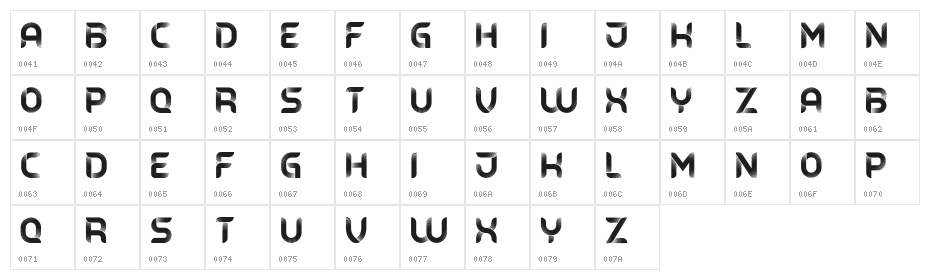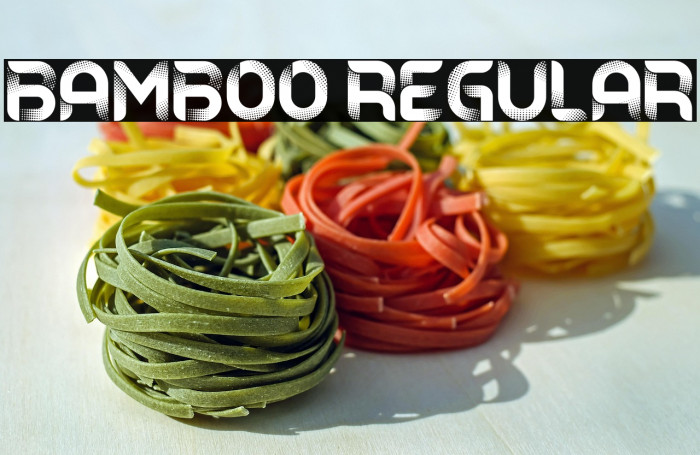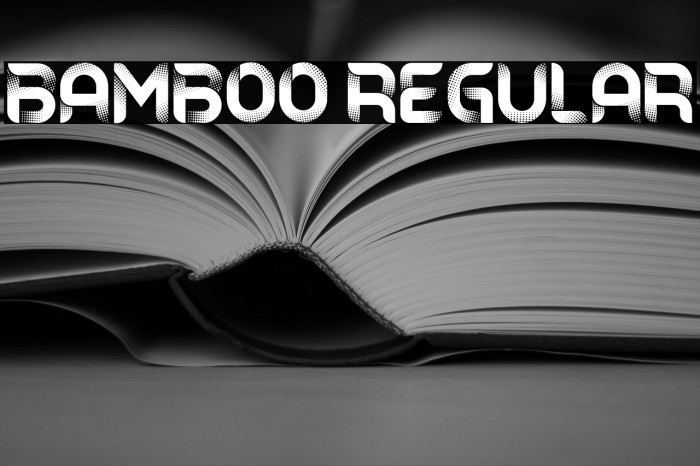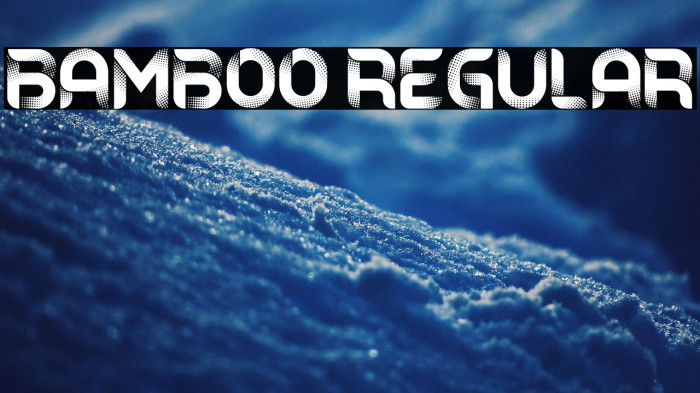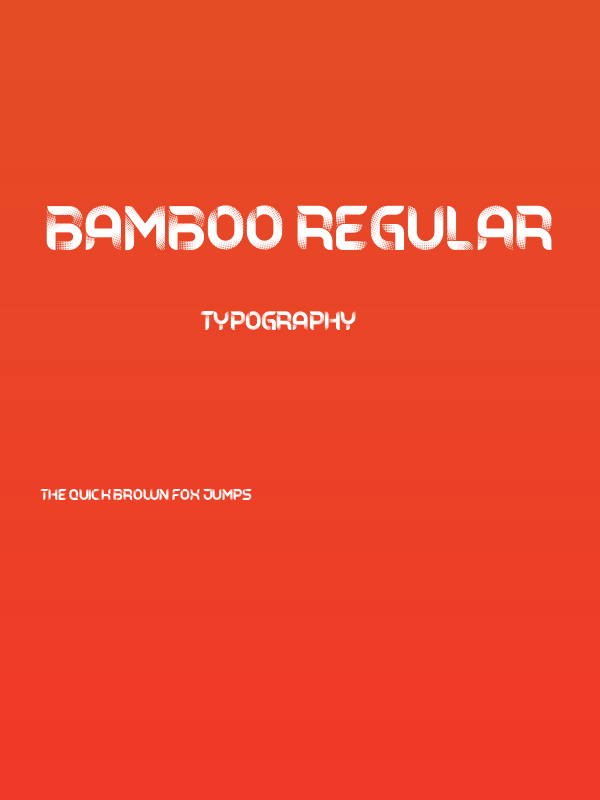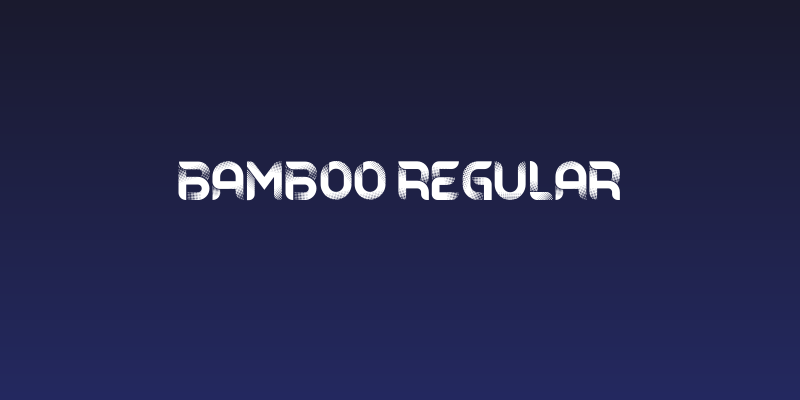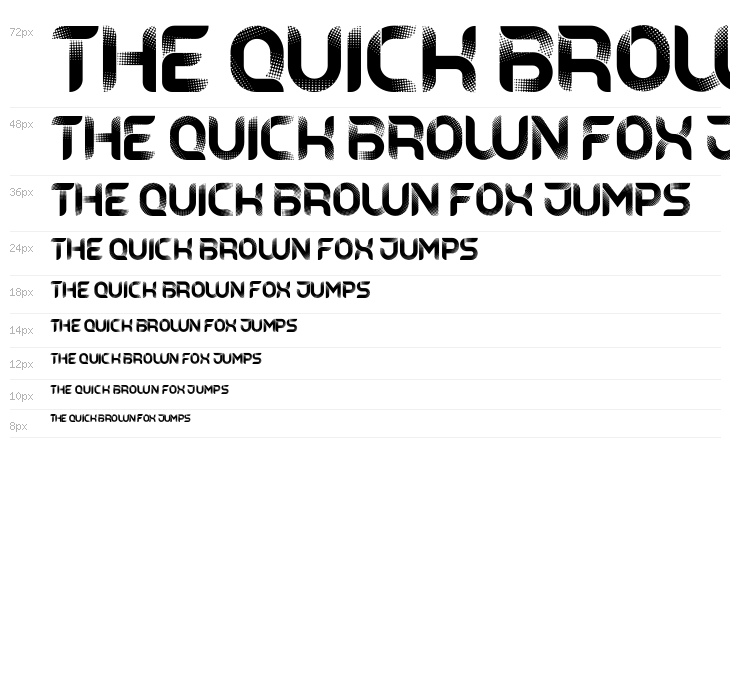
Bamboo Regular Font
Bamboo Regular Description
This font features a unique and modern design with a halftone pattern that creates a sense of depth and texture. The characters are bold and rounded, with a futuristic aesthetic that combines geometric shapes and smooth curves. The halftone effect gives it a dynamic and eye-catching appearance, making it suitable for creative and innovative design projects. The uppercase letters are consistent in style, providing a cohesive look across the alphabet.
| Proposed Projects | Ideal for posters, album covers, branding, and digital art projects that require a futuristic and artistic touch. |